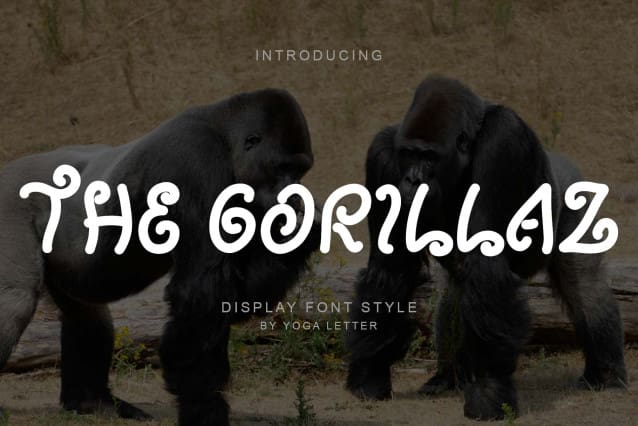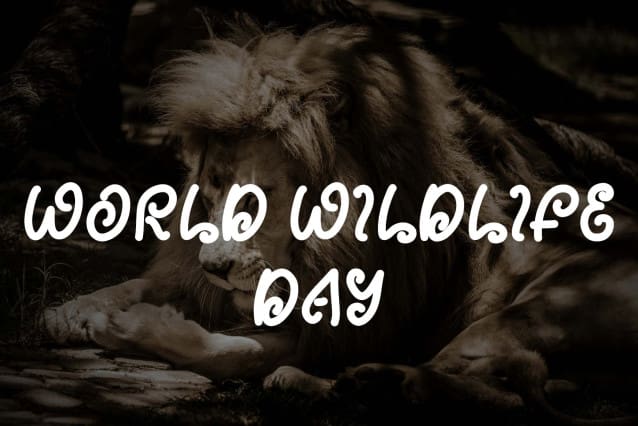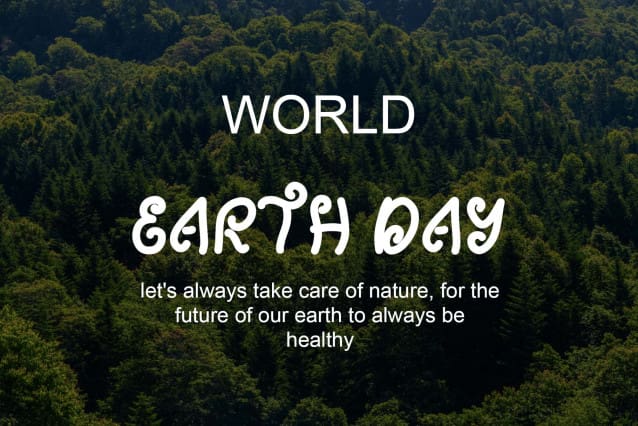
The Gorillaz Font
The Gorillaz Font is a unique display font with twisting letters. Equipped with uppercase letters, lowercase letters, numerals, punctuation, and multilingual support. Very suitable for banners, posters, prints, World Wildlife Day, logos, stickers, branding, summer, vacation, scenery, wildlife, comics, and others.